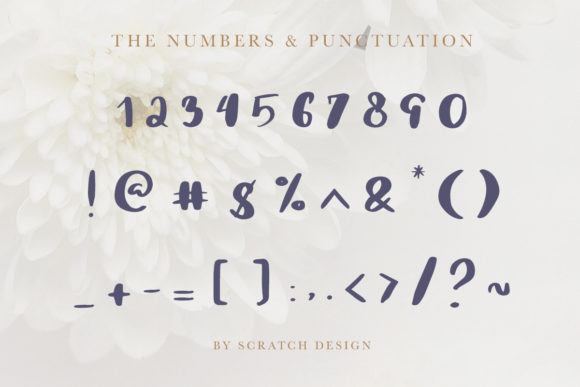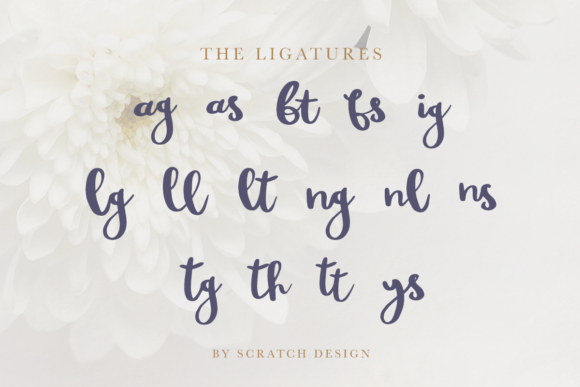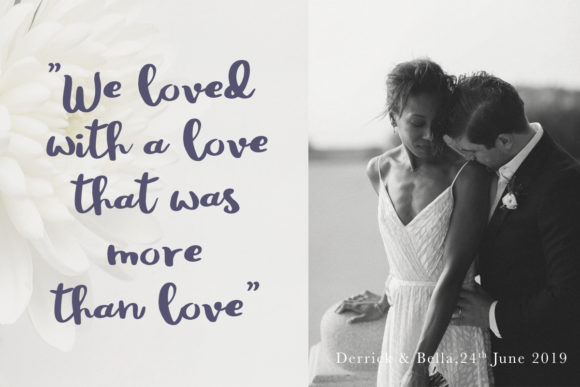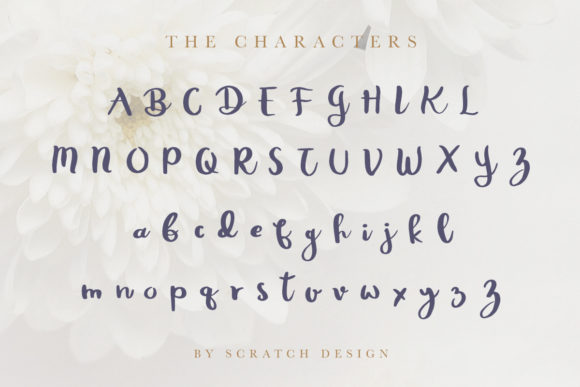
Introduction to Rheydo Font
Remember that moment when you stumbled upon the perfect design element that elevated your project from good to great? For designers, that ‘aha’ moment is what makes the creative process so rewarding. And, we’re about to share one such gem that’s sure to add a personal touch to your next design project – the Rheydo Font.
Handcrafted with love, this quirky handwritten font is full of energy and character, making it the perfect addition to any high-quality design. Whether you’re working on a creative project or need a unique design resource, Rheydo Font is here to help you stand out from the crowd.
Key Features of Rheydo Font
- High-quality design: Rheydo Font is a well-crafted font suitable for creative projects requiring a professional touch.
- Unique character set: This font features a unique character set, including a wide range of glyphs and symbols, making it an excellent choice for creative projects.
Honest Review: Rheydo Font
I recently had the chance to try out the Rheydo Font, a free download that’s been making waves in the design community. As a designer, I’m always on the lookout for high-quality design resources that can elevate my creative projects. And let me tell you, Rheydo Font delivers.
- ✨ Beautiful, elegant lettering that’s perfect for titles and headings.
- ✨ Highly versatile, suitable for a wide range of creative projects, from fashion to food design.
- ⚠️ Limited character set, which may not be suitable for longer texts or paragraphs.
- ⚠️ Not ideal for small text sizes, as the lettering can become difficult to read.
Overall, I’m impressed with the Rheydo Font. It’s a solid addition to any designer’s toolkit, and its free download makes it an accessible resource for creatives of all levels. If you’re looking for a high-quality, elegant font for your next project, Rheydo Font is definitely worth checking out.
The Rheydo Font is ideal for a variety of creative projects, including graphic design, digital art, and even web design. Its high-quality design and transparent background make it a versatile design resource. You can use it to create eye-catching headlines, titles, and even quotes.